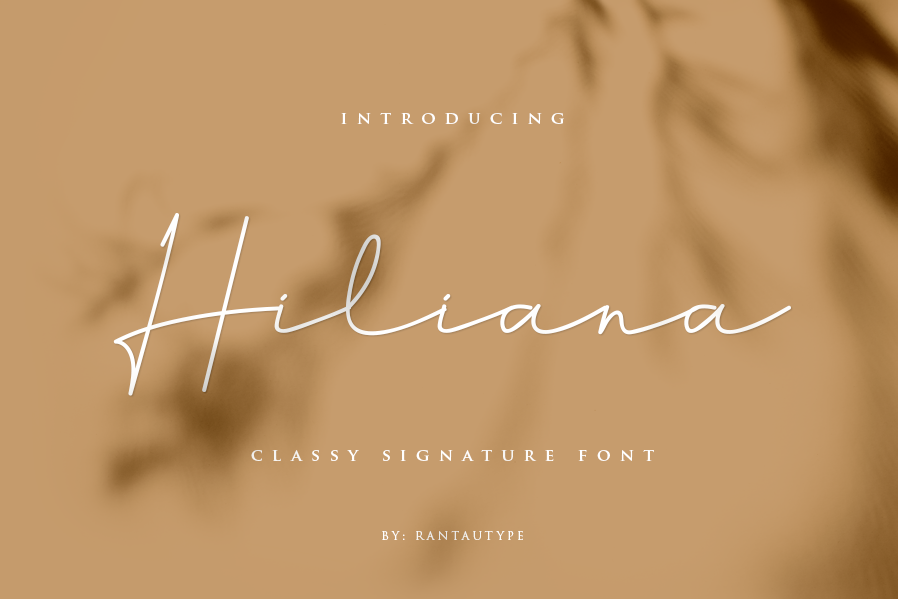
Created By Rantautype
Hiliana
Hiliana is a classy signature font. Its characteristic flow and signature style makes it perfect to use for logos, handwritting, signatures, quotes, badges, labels, packaging design, blog headlines or simply use it in your next design project.